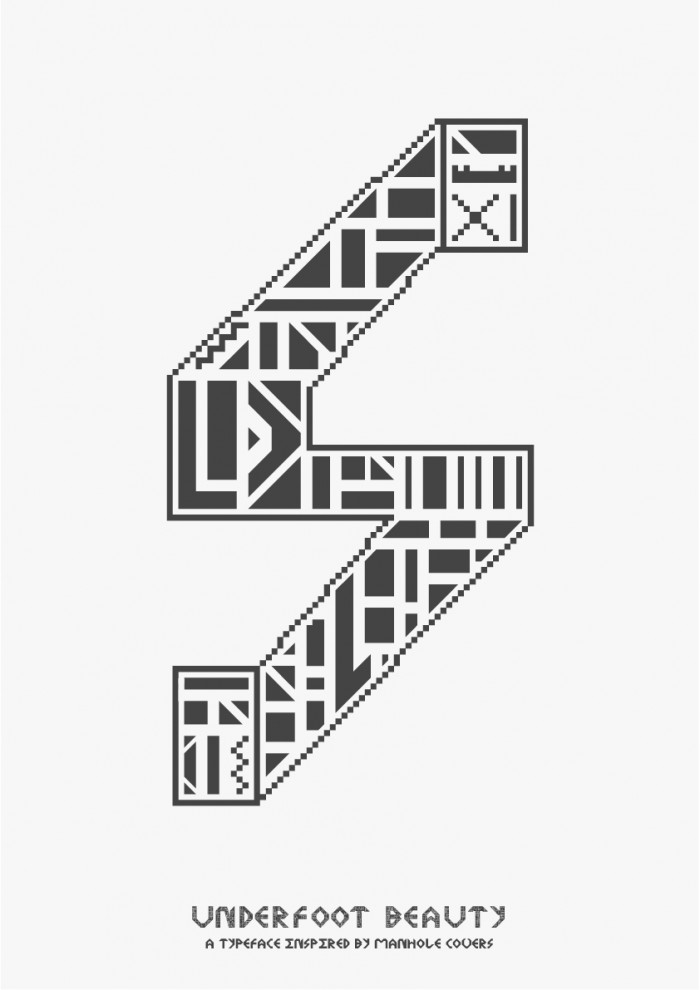
Who would have thought that manhole covers can inspire something so attractive. The detail of the decoration is surprising, it needs to be seen at large size. Glyph shapes remind me of 'phoenician' letters.
I don't know what to say but this is cool m8
I think you've translated the source inspiration into a digital format really effectively :)